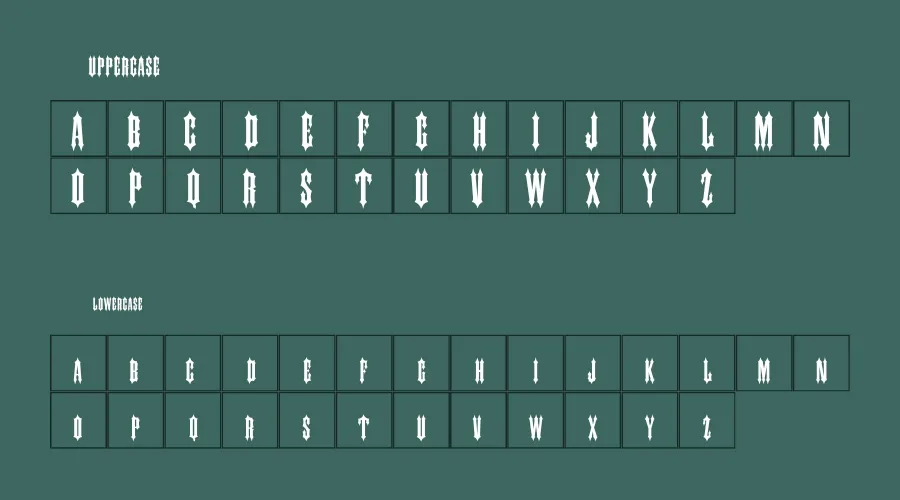
IRONGATE Font
About IRONGATE Font
The IRONGATE Font was created by Tom Nikosey and released through CozyFonts. This font includes 4 unique types of styles and family package options. It is free and available on this site and contains 231 attractive characters of an alphabet set.
This unique font is available only in capital letters, which is perfect for headings, and titles, and mostly utilize this font for shortcut sentences. It can be utilized with Coronets Font and create new unique designs.
The IRONGATE Font has professional letterforms that were mostly utilized for display or large size rather than as a body text. This font work especially for headlines and titles. It is the perfect choice for YouTubers because its uppercase letters will help to create attractive thumbnails, video descriptions, or titles, in video cations, editing, and many more.
This attractive typeface has a stylish look appearance for visitors. You may easily utilize it for social media posts, banners, logo designs, and many more.
Name IRONGATE Font
Designer Tom Nikosey
Style retro
• IRONGATE Regular
• IRONGATE bold
• IRONGATE Italic
What type of font is IRONGATE Font?
The IRONGATE Font belongs to the category of retro texture family that was included in 4 unique types of styles and family package options.
Who is the designer of IRONGATE Font?
The IRONGATE Font was created by Tom Nikosey and released through CozyFonts.